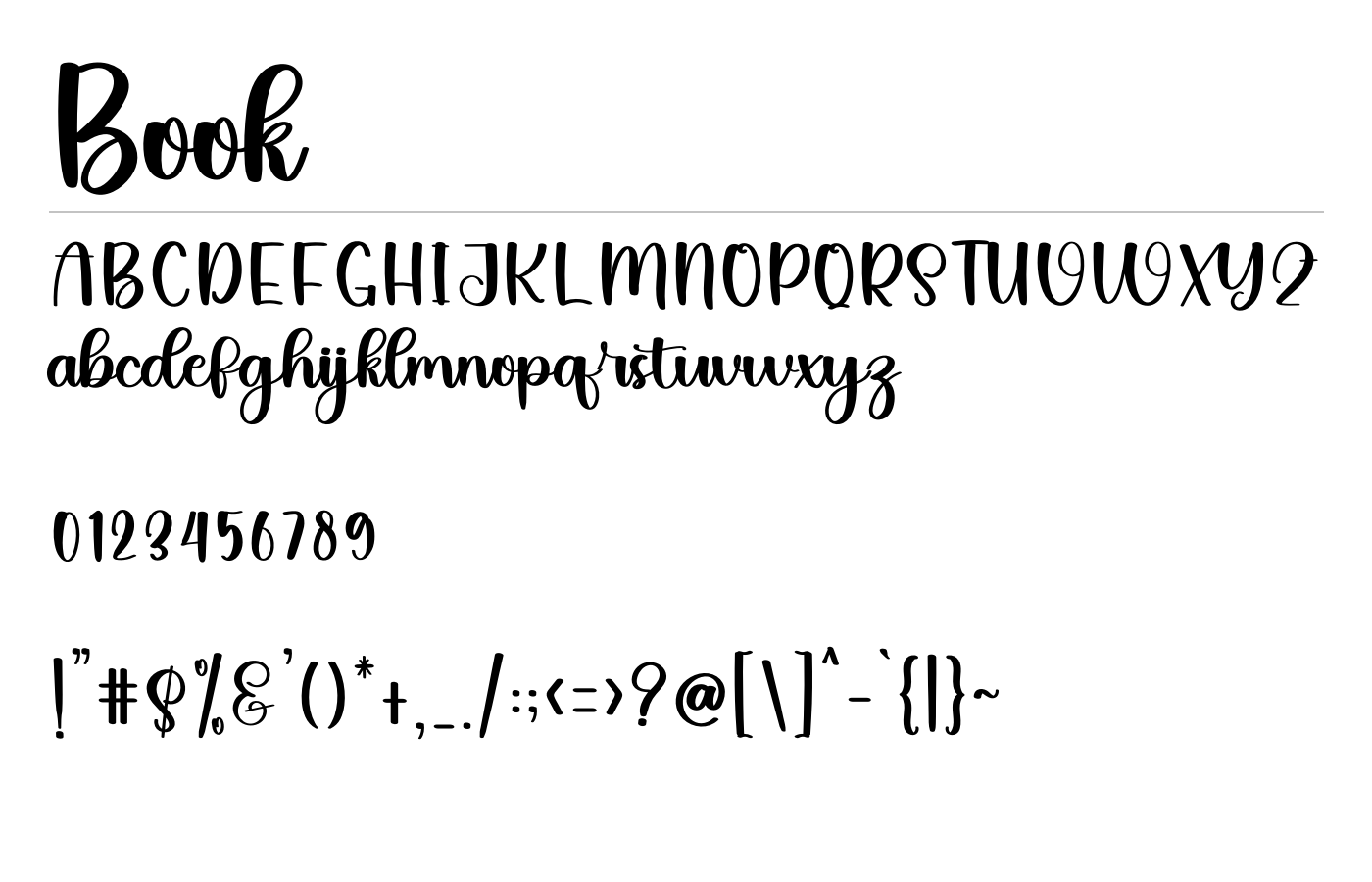
Book Font is a charming, hand-drawn script typeface that combines playful curves with a casual, friendly feel. Its lively strokes and irregular shapes give it a warm, approachable personality, making it perfect for creative projects, invitations, or branding that seeks a personal, informal touch. This font adds a sense of fun and whimsy while remaining highly legible and visually engaging.
Book Font